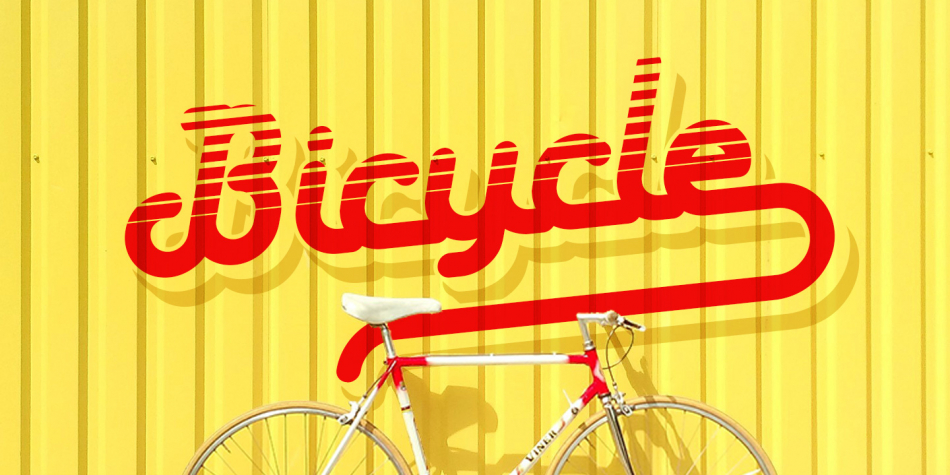
Designed by Rendy Yanwar, Neu Marbelous is a script font family. This typeface has three styles and was published by Rendy Yanwar.
Neu Marbelous is a simple monoline script. Comes with 3 kind of letter styles: Solid, Stripes and Shadow, bring back retro vibes to life.
This typeface can be perfect for logo, title, label, etc. Download this font for your next amazing projects.